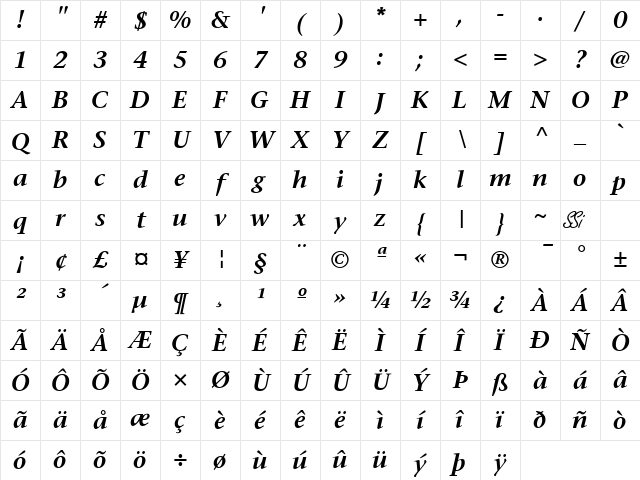
Mesouran Serif SSi Semi Bold Italic
Style: Semi Bold Italic
Mesouran Serif SSi Family
Mesouran Serif SSi Semi Bold Italic
Design Context for Mesouran Serif SSi
Mesouran Serif SSi carries the refined structure of traditional serif typography, with bracketed terminals and considered proportions that communicate credibility and craft. The slanted form adds forward momentum and visual energy. Its bold stroke weight gives it real presence on the page.